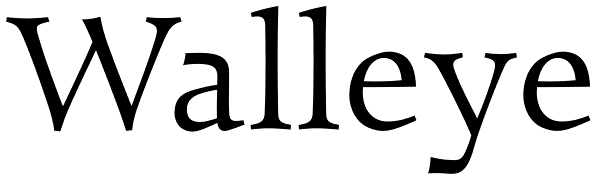
Walleye
Walleye is an original serif font suitable for setting longer texts. It contains the Latin, (Polytonic) Greek, and Cyrillic alphabets, and supports a broad variety of languages, including almost all spoken in Europe. It also has small caps for all...